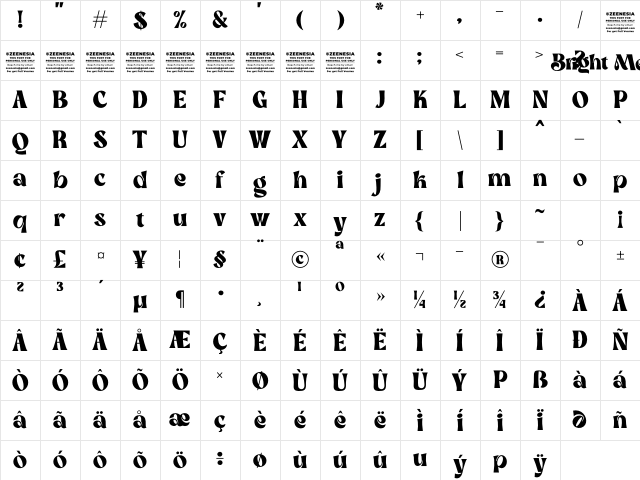
Bright Melody Personal Use Only Regular Free Font
Bright Melody Personal Use Only Regular
Design Context for Bright Melody Personal Use Only
Bright Melody Personal Use Only is a composed and adaptable typeface that performs quietly and consistently across a wide range of design contexts.